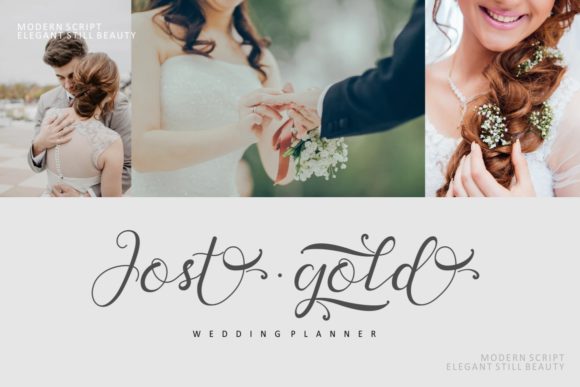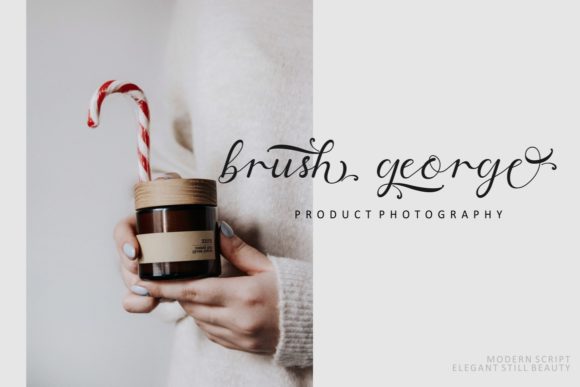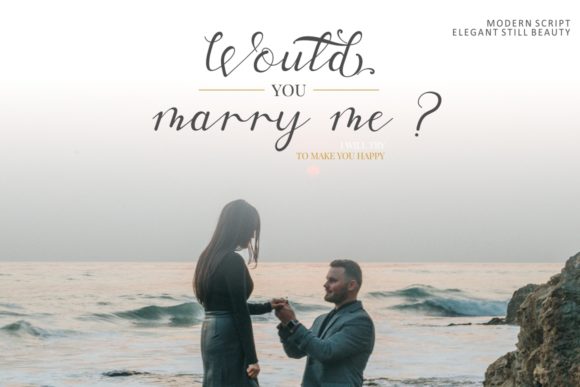
Introduction to Almahyra Font
Almahyra is a magical script font carefully created with a touch of elegance.
This is a beautiful combination of timeless elegance and authentic calligraphy It features a varying baseline, smooth lines, gorgeous glyphs and stunning alternates.
Key Features of Almahyra Font
Why Choose Almahyra Font?